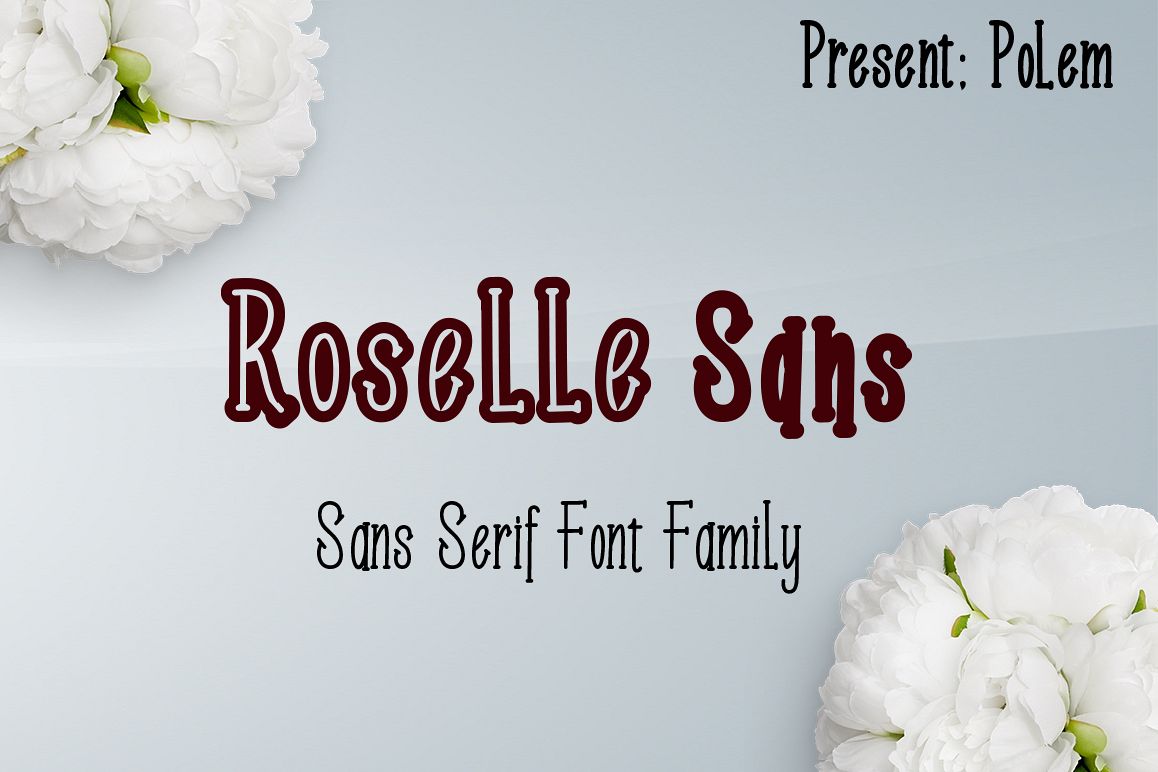
Roselle Sans Family Font
Roselle-Bold
Roselle-DemiBold
Roselle-Thin
Roselle-SemiBold
Roselleline-Regular
RoselleOutline-Regular
Roselle  is Font Family 6 Style new sans serif font has a sleek typeface, font is very simple and easy to manipulate: logos, slogan and made in advertising messages,wedding invitation, t-shirt, letterhead, signage, lable, news, posters, badges etc.